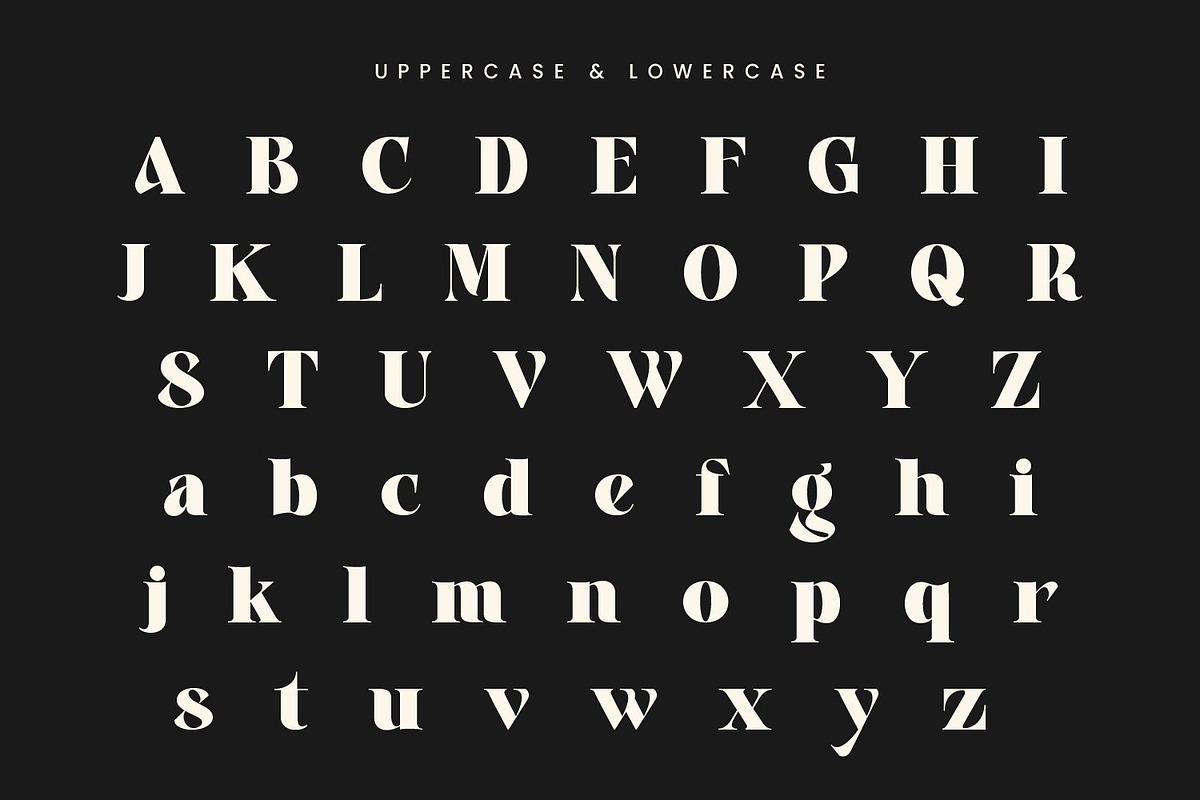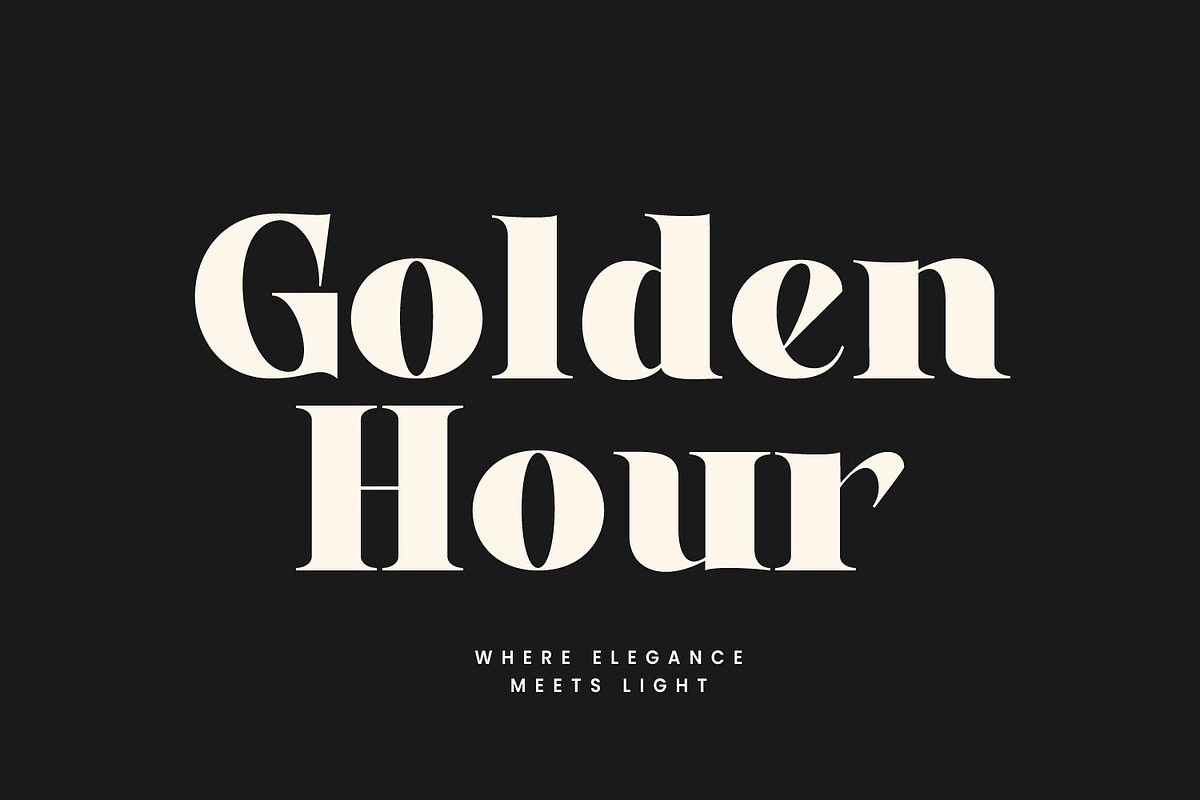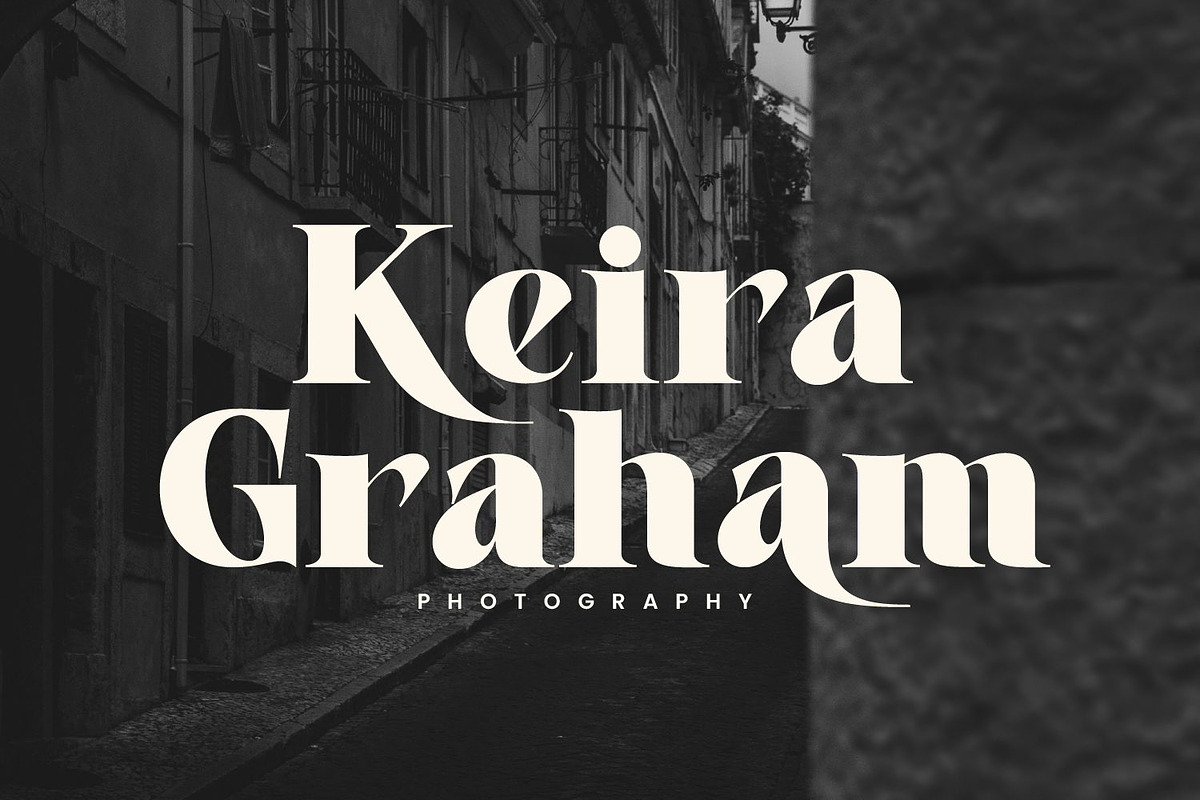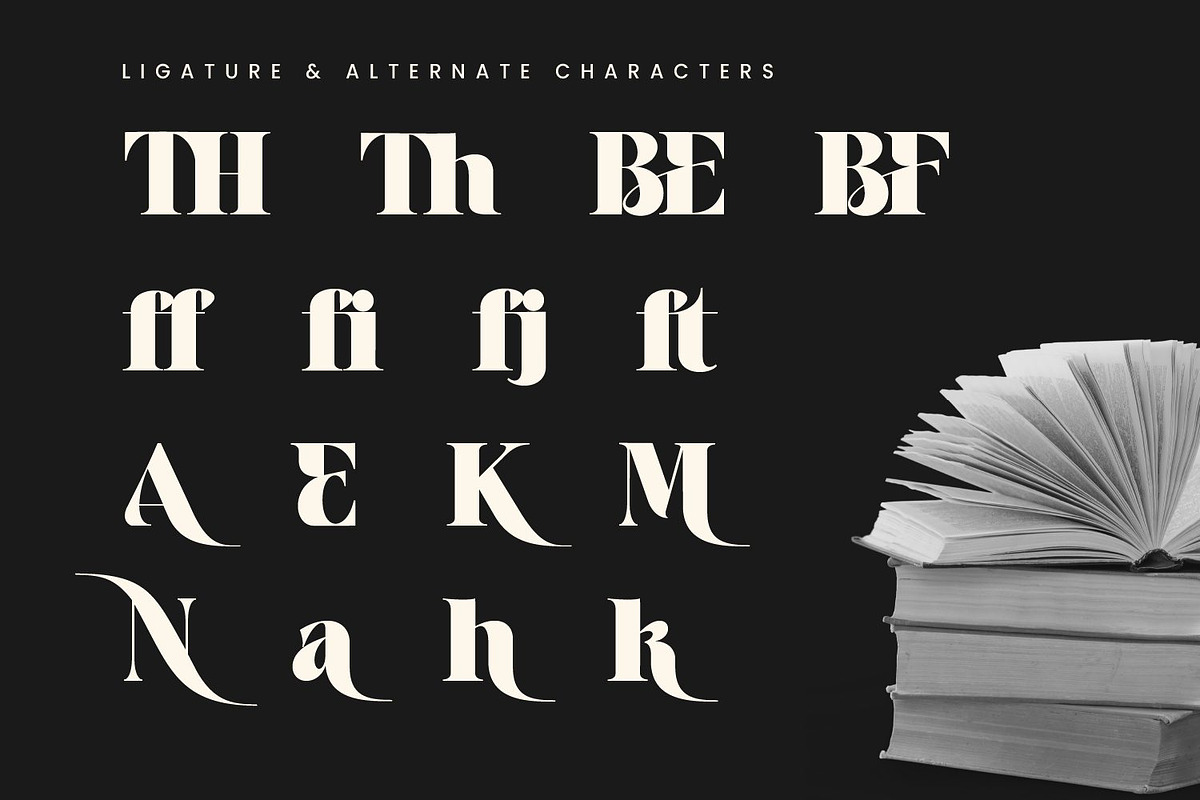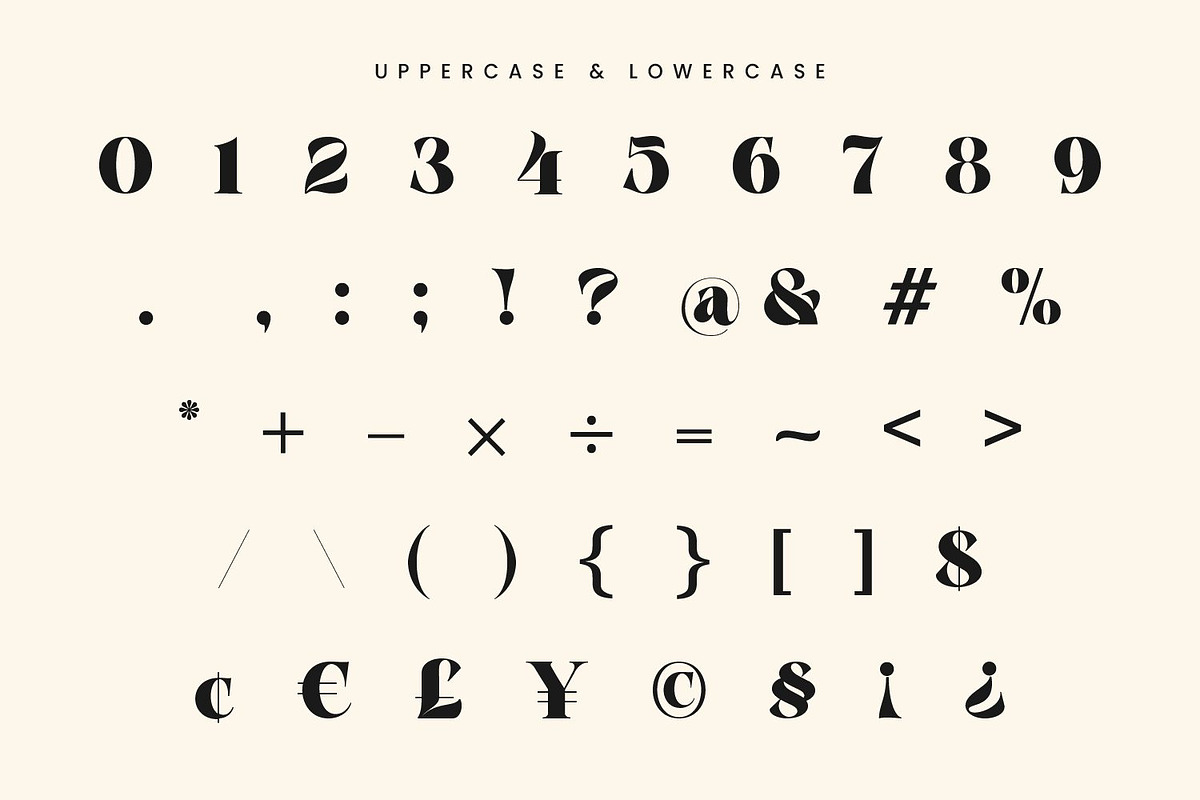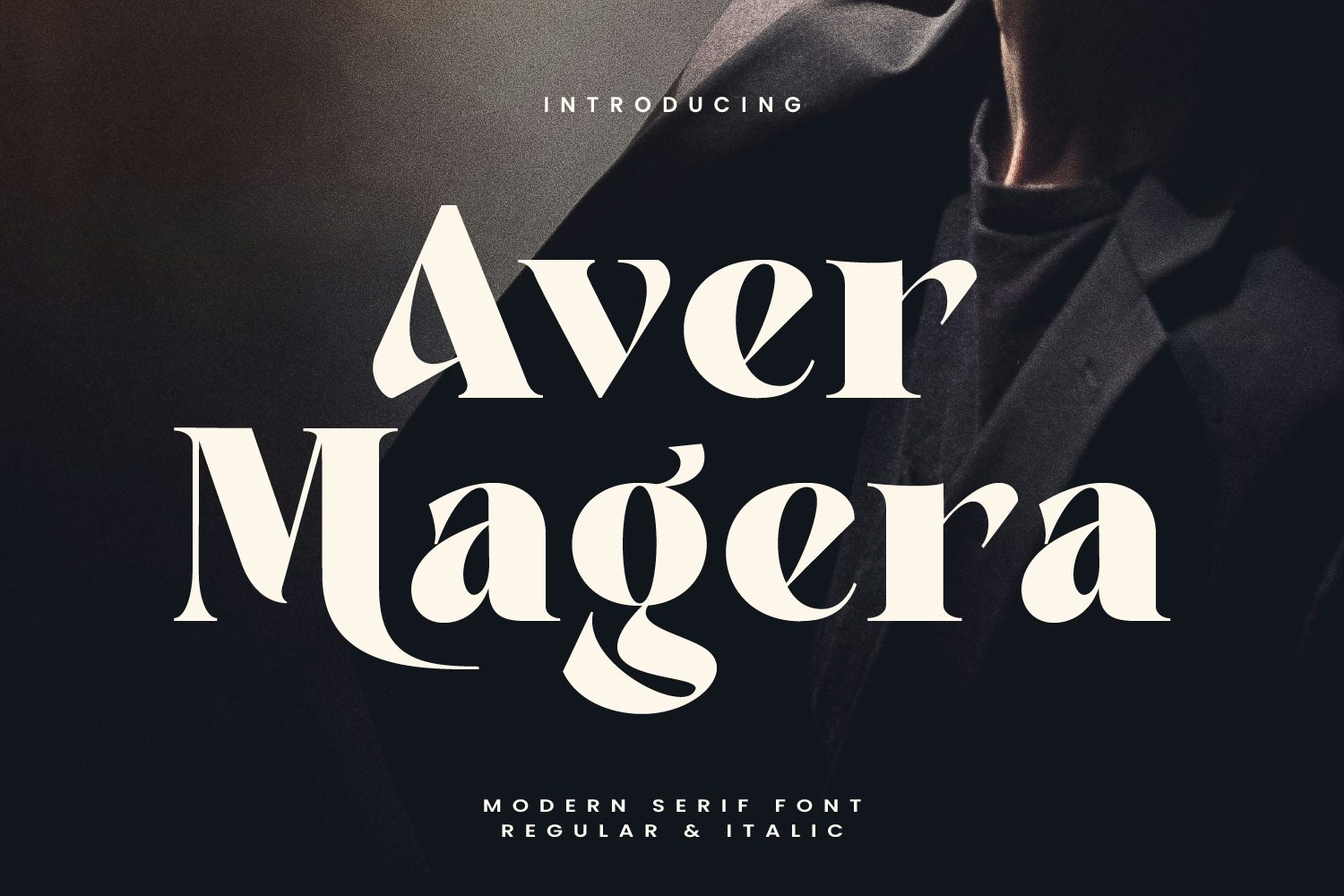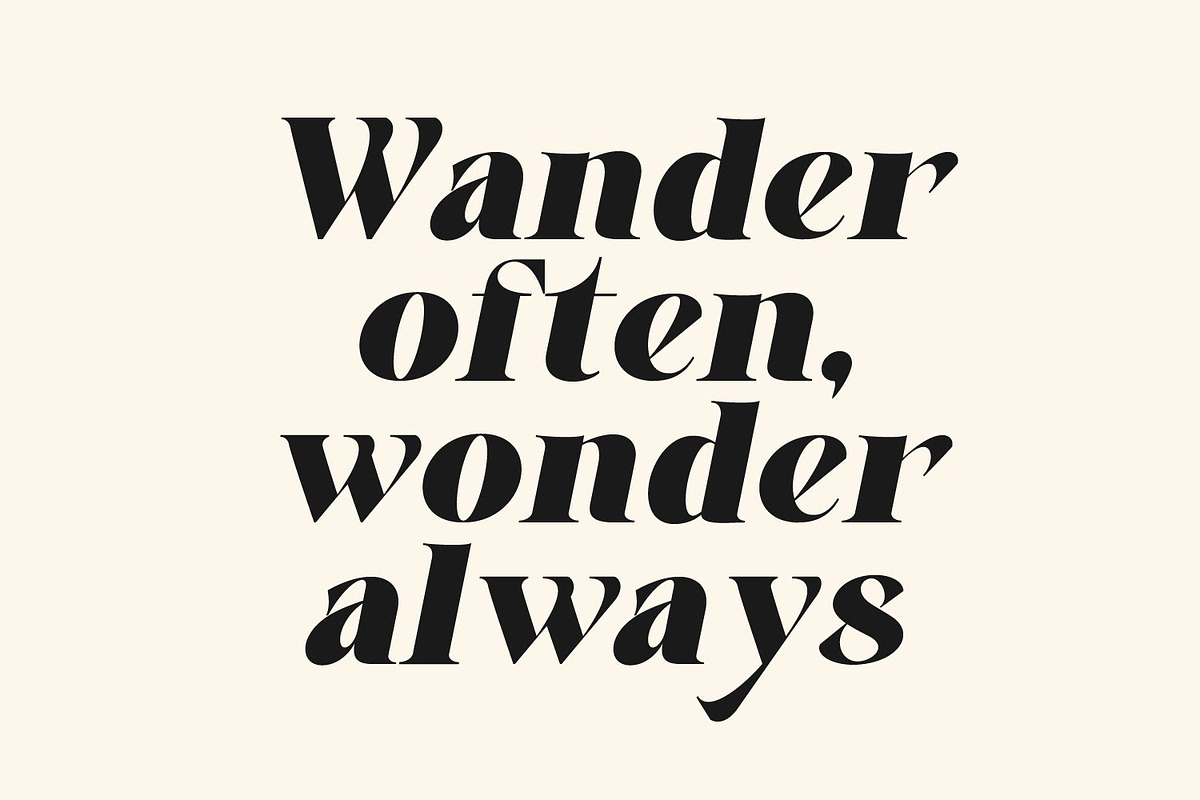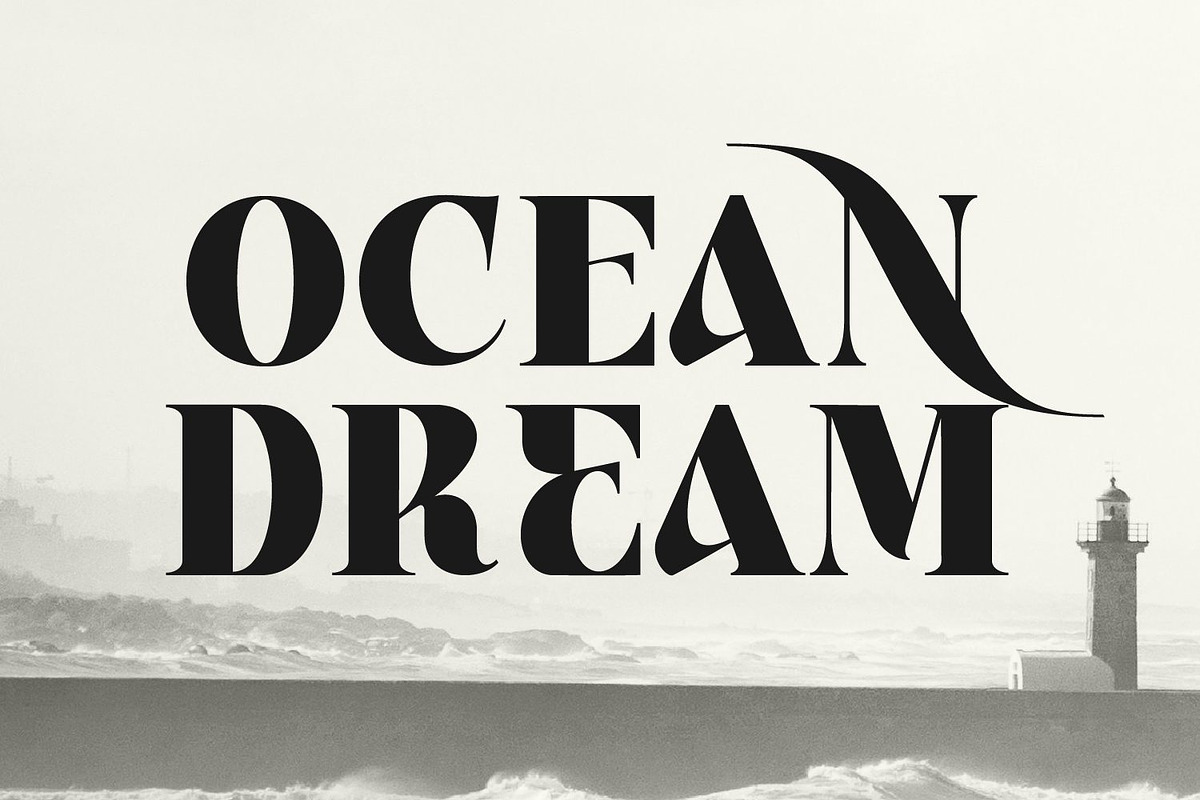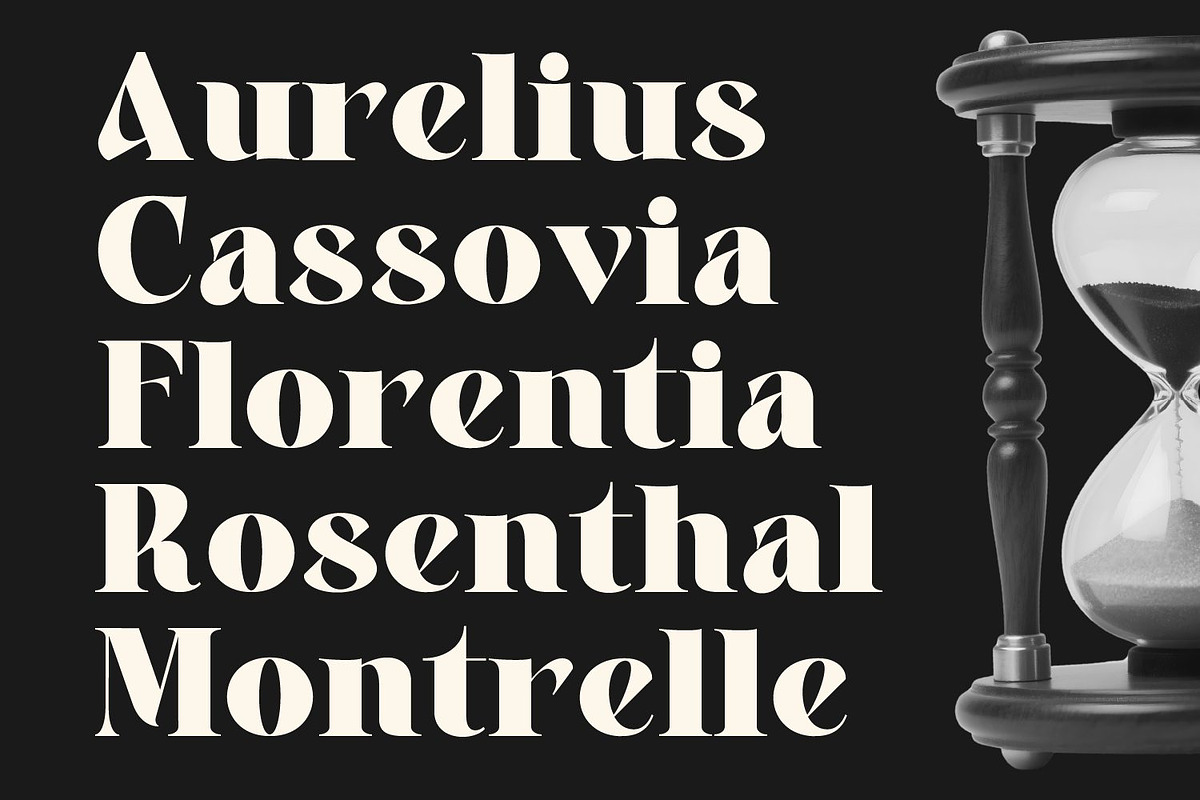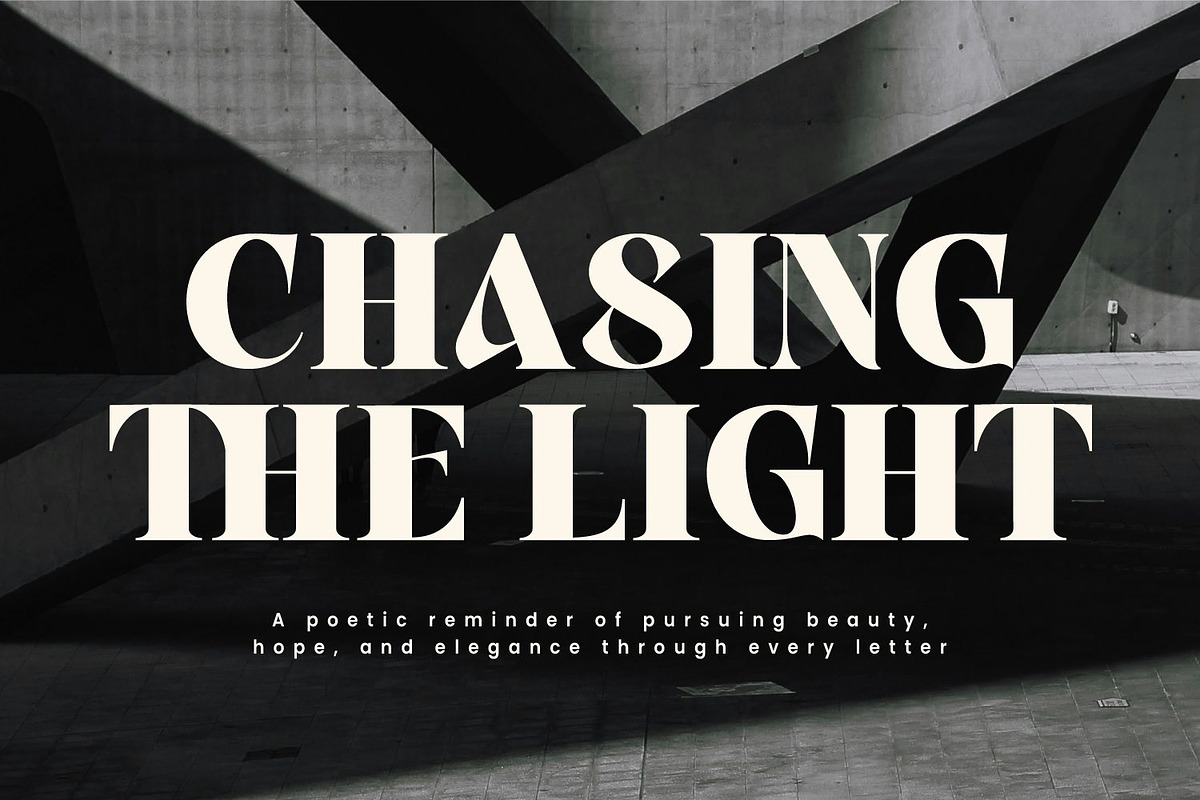
Aver Magera Luxury Font
Aver Magera is a modern serif font with a touch of timeless elegance. Designed with bold contrasts and refined curves, it brings a luxurious yet highly legible character to your projects. Its unique cuts and graceful shapes create a distinctive artistic feel, making it perfect for creative works that demand sophistication.
Available in Regular & Italic, Aver Magera is highly versatile and ideal for:
- Branding & Logo Design
- Editorials & Magazines
- Posters & Book Covers
- Quotes & Social Media
- Premium Packaging
With its balance of modern style and classic charm, Aver Magera delivers an elegant, fashionable, and timeless presence to elevate any design.